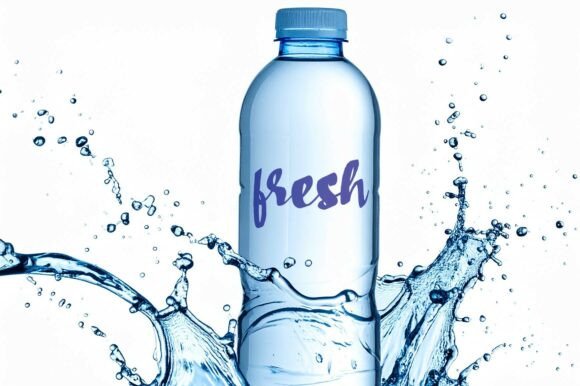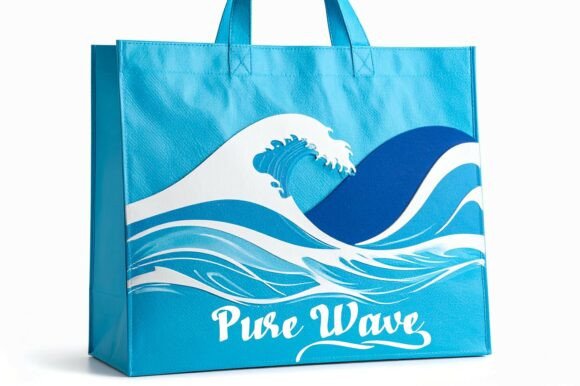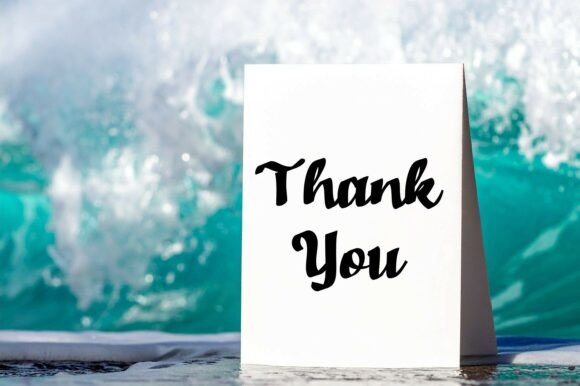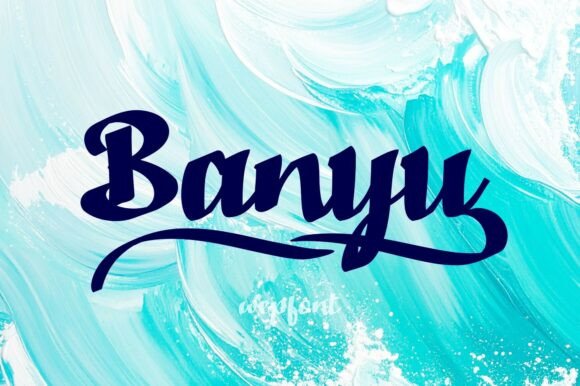
Banyu Font: Elevate Your Design with Elegant Script and Natural Flow
Are you searching for a font that embodies the serenity and sophistication of water? Look no further than Banyu, a fluid and elegant script font that beautifully captures the natural flow and movement of liquid. With its smooth, refined letterforms and swashes that evoke gentle ripples or dynamic splashes, Banyu is the perfect choice for designers seeking to convey purity, freshness, and elegance in their work.
The Inspiration Behind Banyu
Banyu’s design is inspired by the fluidity and dynamism of water. The font features connected strokes with swashes that mimic the gentle movement of liquid, creating a sense of natural flow and movement. This unique design element sets Banyu apart from other script fonts, making it an exceptional choice for designs that require a touch of sophistication and elegance.
Key Characteristics of Banyu Font
- Fluid and Elegant Design: Banyu’s script font is designed to mimic the natural flow of water, making it perfect for designs that require a sense of movement and fluidity.
- Graceful, Connected Strokes: The font features connected strokes that create a sense of continuity and flow, making it ideal for designs that require a touch of elegance.
- Swashes and Flourishes: Banyu’s swashes and flourishes evoke the gentle ripples or dynamic splashes of liquid, adding a touch of dynamism to your designs.
- Smooth and Refined Letterforms: The font’s letterforms are smooth and refined, giving it a sophisticated yet natural and refreshing appeal.
Ideal Applications for Banyu Font
Banyu’s unique design makes it an excellent choice for a variety of design applications, including:
- Branding for Bottled Water and Wellness Drinks: Banyu’s elegant and refreshing design makes it perfect for branding and packaging for bottled water and wellness drinks.
- Spa and Aquatic Resort Branding: The font’s soothing and natural design elements make it an excellent choice for spas, aquatic resorts, and wellness centers.
- Beauty Products and Eco-Friendly Initiatives: Banyu’s elegant and natural design makes it suitable for beauty products and eco-friendly initiatives that require a touch of sophistication.
- High-End Event Invitations: The font’s luxurious and elegant design makes it perfect for high-end event invitations, such as weddings and galas.
- Luxury Packaging and Social Media Graphics: Banyu’s unique design elements make it an excellent choice for luxury packaging and social media graphics that require a touch of elegance and sophistication.
Why Choose Banyu Font?
Banyu offers a unique combination of elegance, sophistication, and natural flow, making it an exceptional choice for designers seeking to create visuals that are both calming and captivating. With Banyu, you can:
- Create a Lasting Impression: Banyu’s refined beauty and invigorating clarity make it perfect for designs that require a lasting impression.
- Convey Purity and Freshness: The font’s natural and refreshing design elements make it suitable for designs that require a sense of purity and freshness.
- Elevate Your Design: Banyu’s elegant and sophisticated design makes it perfect for designers seeking to elevate their work and create a sense of luxury.
Banyu font is a unique and elegant script font that beautifully captures the natural flow and movement of water. With its smooth, refined letterforms and swashes that evoke gentle ripples or dynamic splashes, Banyu is the perfect choice for designers seeking to convey purity, freshness, and elegance in their work. Whether you’re designing branding for bottled water, high-end event invitations, or luxury packaging, Banyu is an exceptional choice that will help you create visuals that are both calming and captivating.